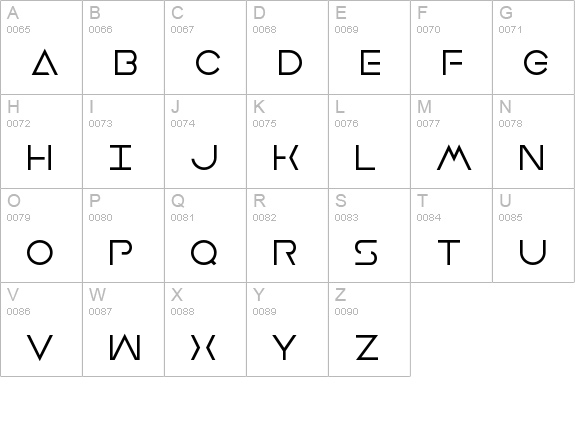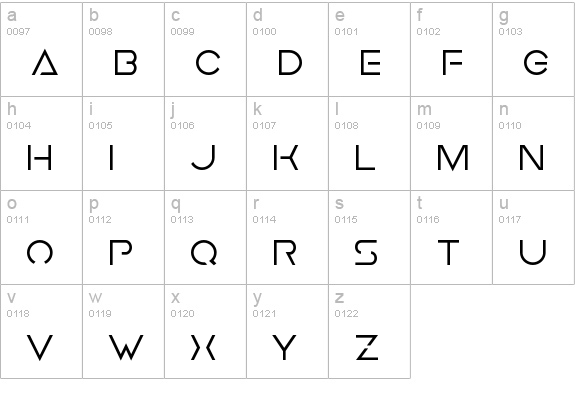
Earth Orbiter is a donationware font in the Modern > Sci-Fi category, designed by Iconian. It has been downloaded 248 times and is available for Windows, Mac and Linux.
Earth Orbiter is a sleek and modern font that exudes a sense of futuristic sophistication. Its sharp lines and geometric shapes give it a high-tech feel, making it perfect for projects that require a contemporary touch. Whether you're designing a website, creating branding materials, or working on a digital art piece, Earth Orbiter will elevate your work to the next level.